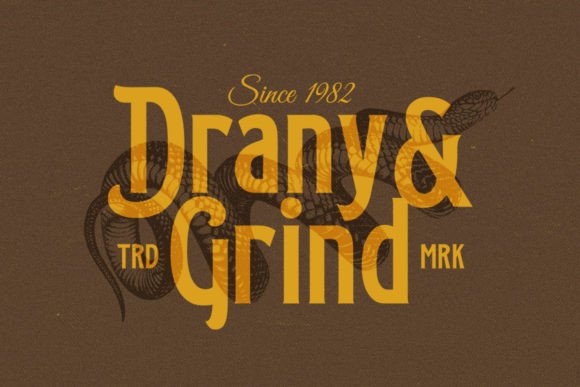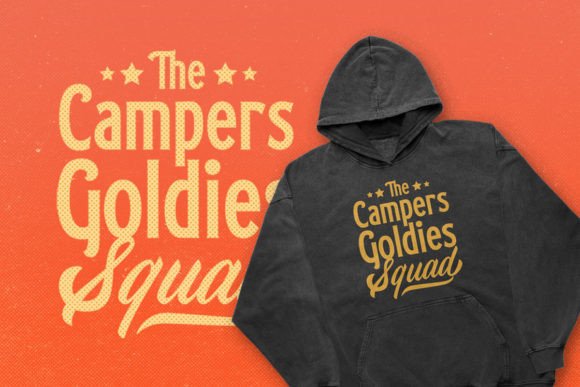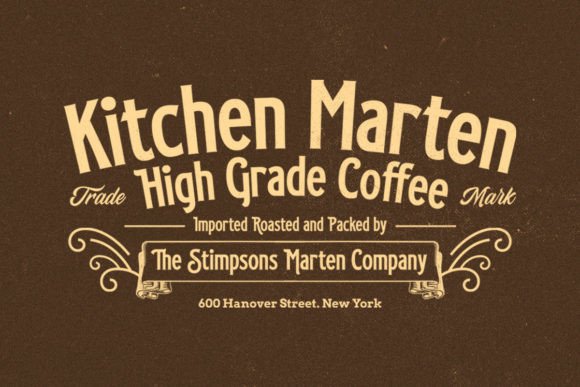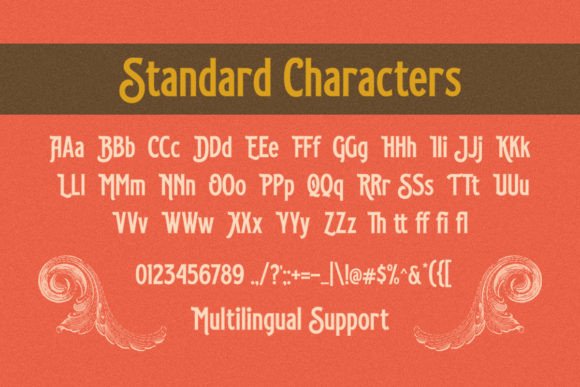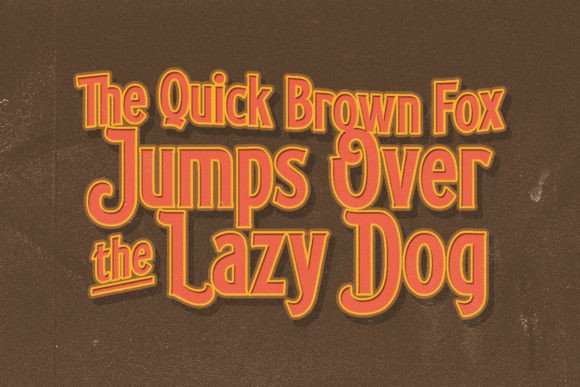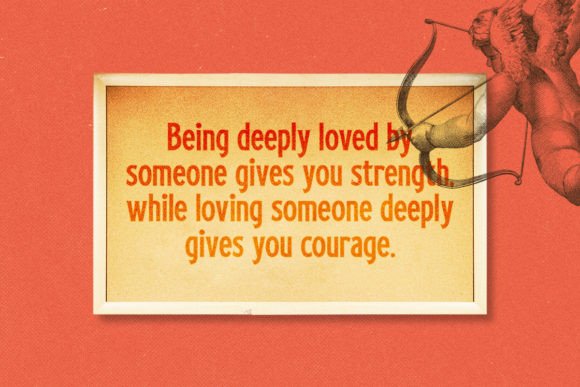
Introduction to Rackmon Font
Rackmon is a vintage display typeface with a touch of nostalgia.
Whether youโ€™re using it for crafts, digital design, presentations, or labels, this font has the potential to become your favorite go-to font, no matter the occasion .
Key Features of Rackmon Font